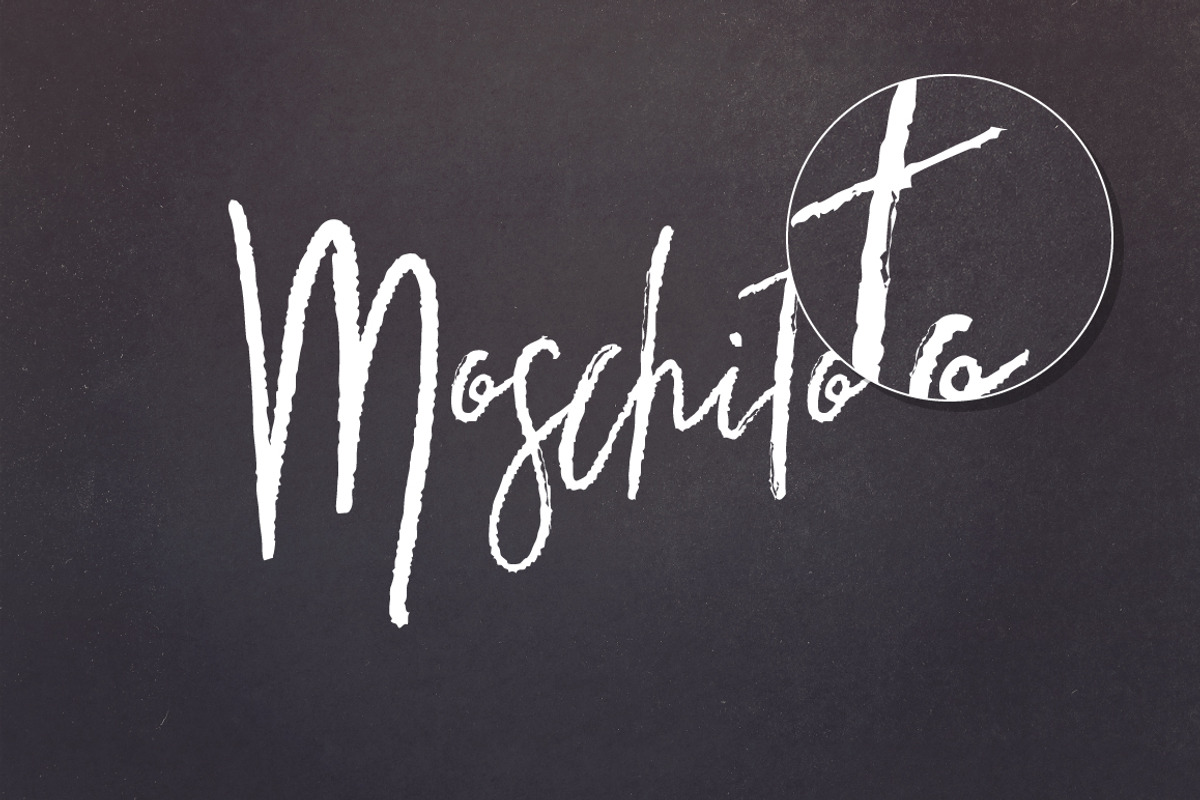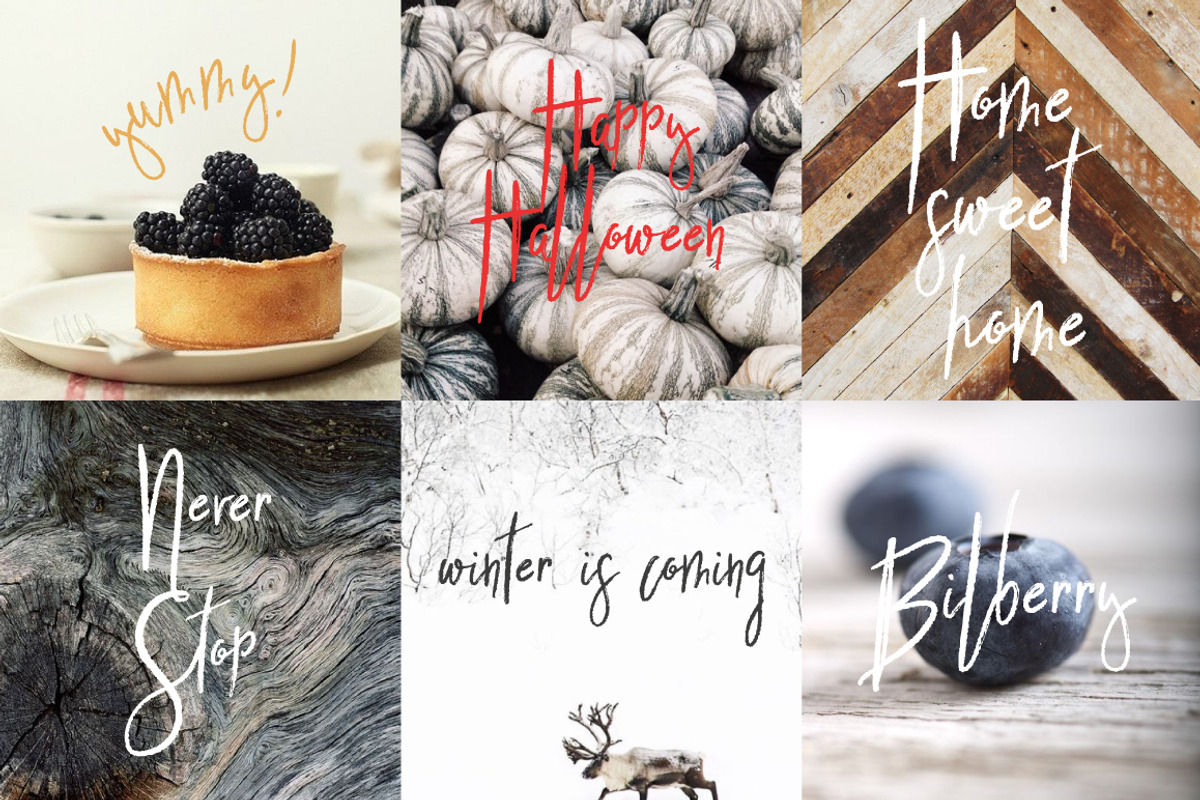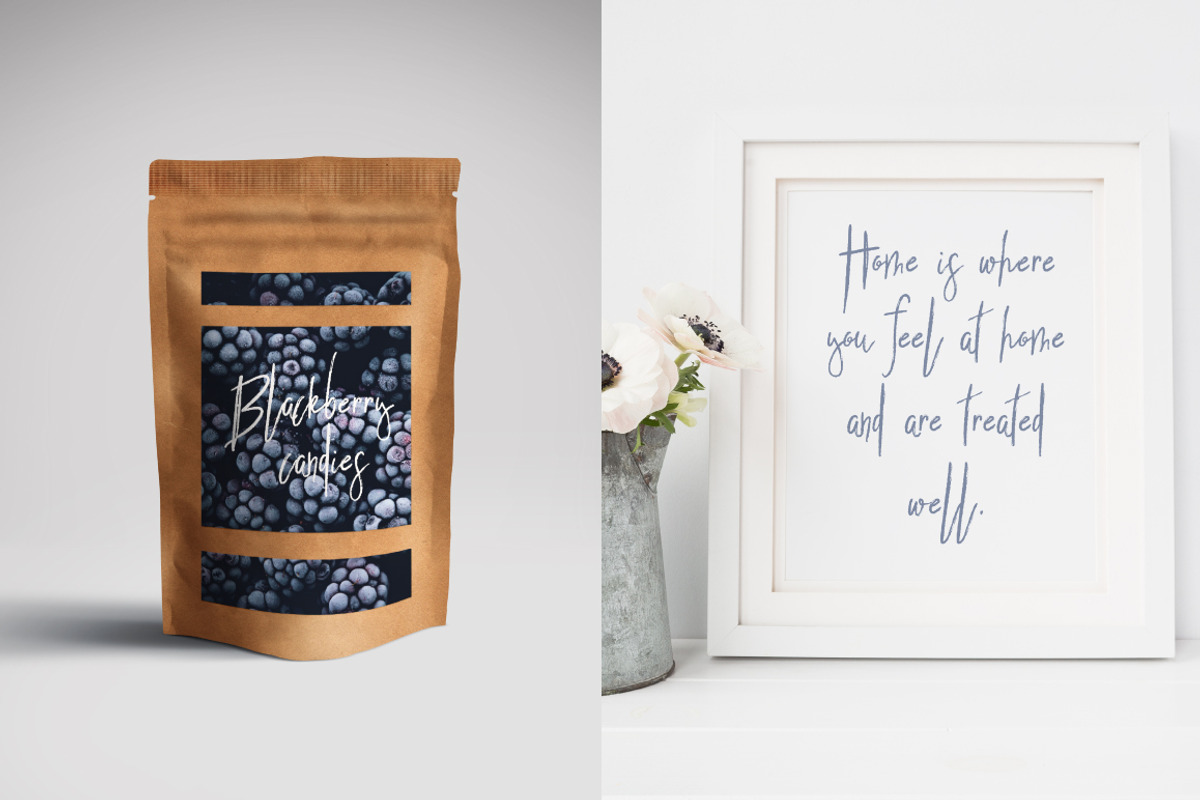
Artistic Friend Rough Font
Artistic Friend Rough Font by Creamy Script is a font selected for branding, posters, packaging, typography.
Why Artistic Friend Rough Font is worth a look
Artistic Friend Rough Font by Creamy Script fits naturally into Branding, posters, packaging, typography.